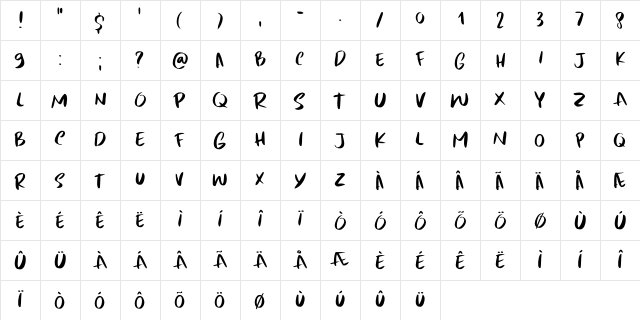
Flying Saucer Script DEMO Regular
Design Context for Flying Saucer Script DEMO Typeface
Flying Saucer Script DEMO flows with the natural rhythm of handwritten lettering, making it ideal for designs that call for warmth and personal expression.
Font Pairing: Combine Flying Saucer Script DEMO with a simple geometric sans for maximum contrast — the tension between flowing curves and clean structure is a classic typographic pairing.
Pro Tip: Use Flying Saucer Script DEMO for short runs of text — names, titles, or taglines. Extended body copy in script faces tires the eye quickly.